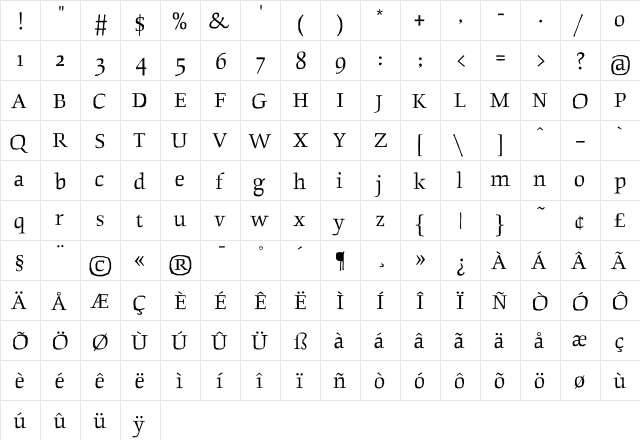
Beowolf SerifR21
Design Context for Beowolf Typeface
Beowolf carries the refined structure of traditional serif typography, with bracketed terminals and considered proportions that communicate credibility and craft.
Pro Tip: Use Beowolf for editorial body copy and considered headline work. Pair with a neutral sans for UI elements or captions to create a classic hierarchy.